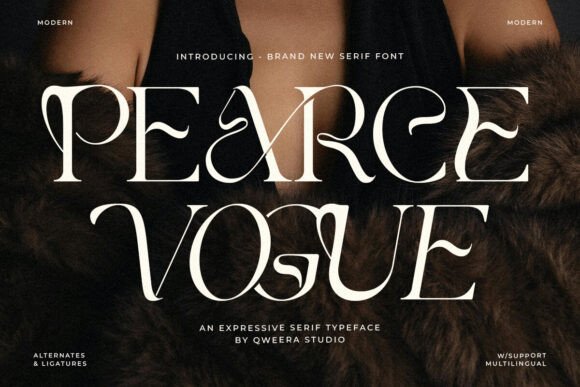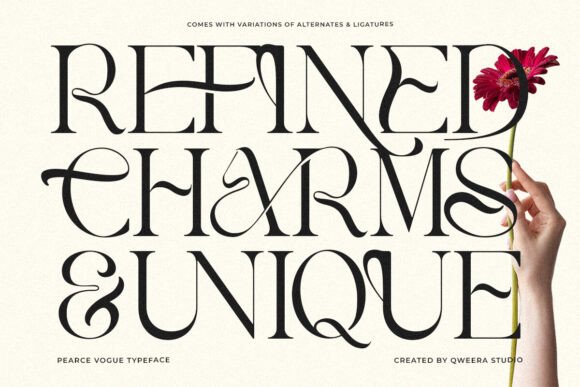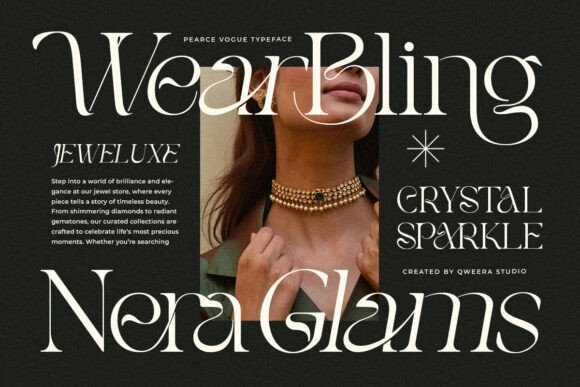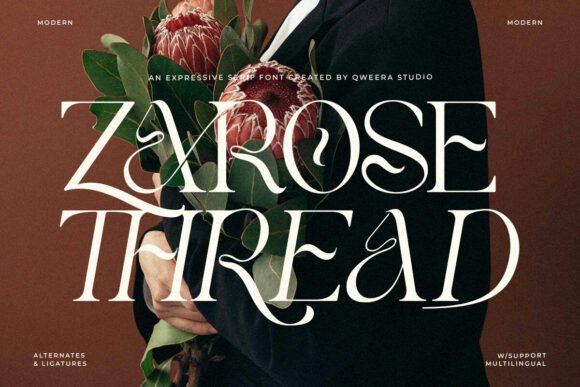
Pearce Vogue Font: Elegant Serif for Luxury Branding & Logo Design
About the Pearce Vogue Font
Welcome to the world of Pearce Vogue Font, a typeface that will inspire your next great project. Pearce Vogue – Luxury Decorative Serif Font for Sophisticated Designs
Pearce Vogue is more than just a font—it’s a luxurious decorative serif typeface designed to elevate your creative projects with elegance and style. Featuring unique details, regular and italic versions, stylish alternates, and ligatures, this font offers effortless customization for a wide range of design needs. Whether you’re working on branding, posters, magazines, or print designs, Pearce Vogue adds a sophisticated and modern touch to your work, ensuring your projects captivate attention and leave a lasting impression.
Where Luxury Meets Modern Elegance
Pearce Vogue stands out with its bold, stylish character and intricate details, offering endless creative possibilities. Its versatility makes it ideal for projects that demand a luxurious and elegant aesthetic, from high-end branding to editorial layouts. This font isn’t just a tool—it’s a statement of sophistication and creativity.
Elevate Your Designs with Pearce Vogue
Pearce Vogue isn’t just a font—it’s a tool to transform your creative projects into luxurious, sophisticated masterpieces. Whether you’re designing for print, digital, or branding, this font ensures your work stands out with timeless elegance and modern flair.
Pearce Vogue Font Usage Examples
Pearce Vogue Font Example